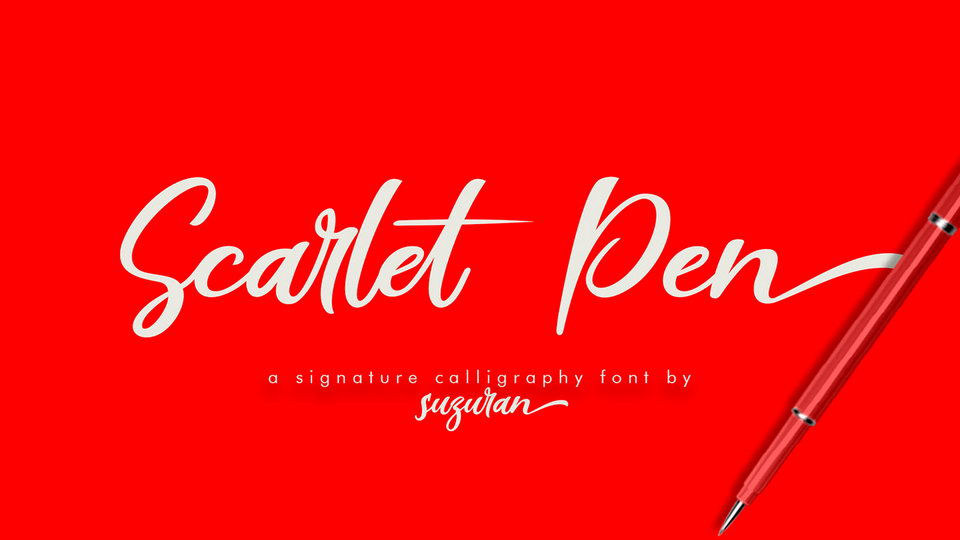
Download Scarlet Pen font, a beautiful modern script with very fresh and unique style handmade. Perfectly suits for logo, stationery, poster, apparel, branding, wedding invitation, card, tagline, layout design, and much more !!.
Designer: Suzuran Type